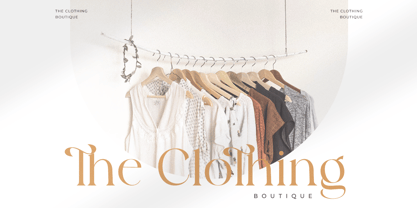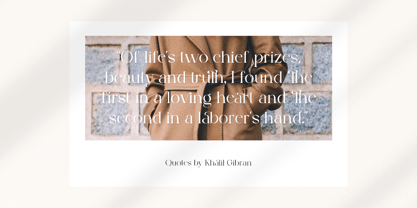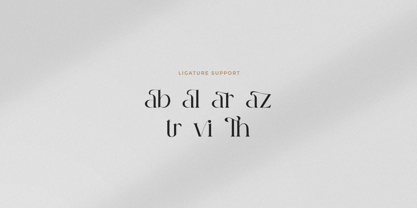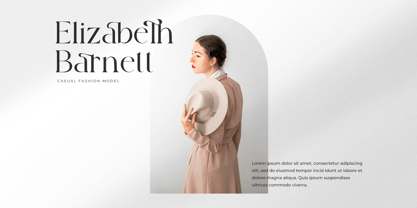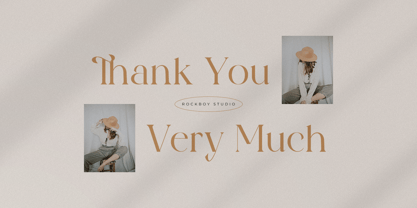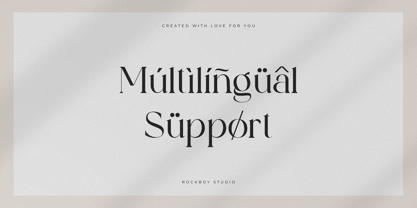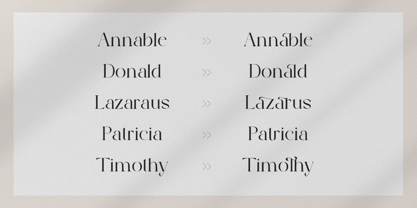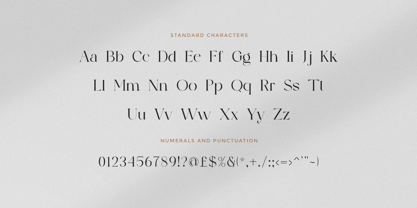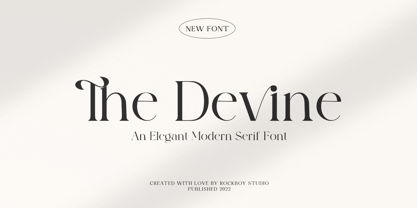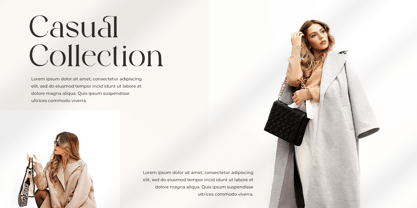
The Devine
The The Devine Font Family was designed by Hayinah and published by Rockboys Studio. The Devine contains 1 styles. More about this family
The Devine is a distinct, elegant and authentic serif font. Masterfully designed to become a true favorite, this font has the potential to bring each of your creative ideas to the highest level!